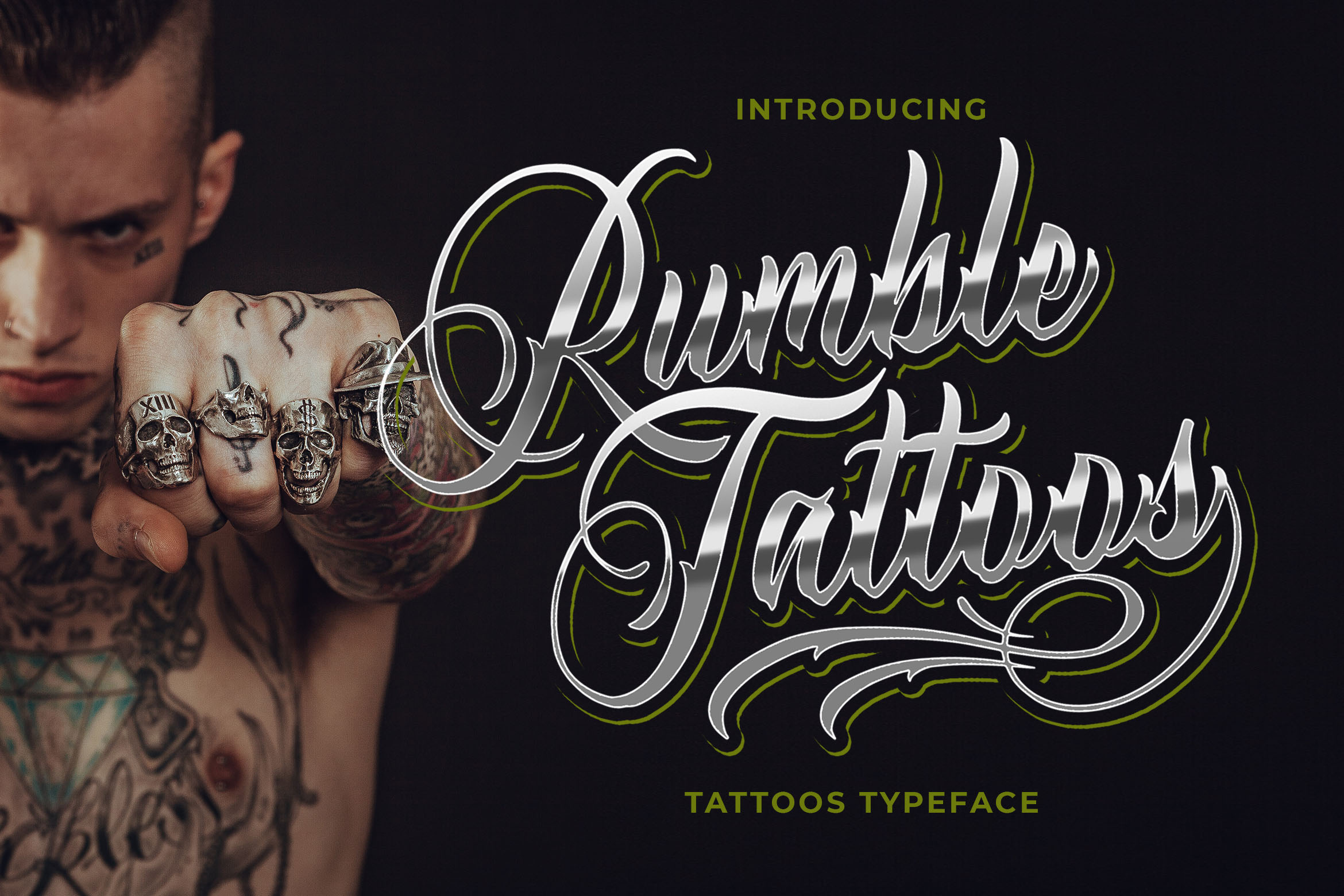
Rumble Tattoos Font
Rumble Tattoos Font is perfect for tattoo parlor branding, biker culture merchandise, rock band logos, motorcycle shop signage, rebellion-themed packaging, vintage americana designs, leather goods branding, and edgy advertising campaigns. This rebellious typeface works exceptionally well in both digital applications and print media where raw authenticity and outlaw spirit are essential design elements.
What makes Rumble Tattoos Font so exciting is its authentic capture of tattoo parlor culture and biker lifestyle through bold letterforms that seem inked with the rebellious spirit of American road culture and traditional tattoo artistry. The font features rugged characters with hand-drawn proportions, gritty textures, and outlaw details that evoke the authenticity of vintage tattoo flash sheets and motorcycle club patches. Its rebellious personality and subcultural heritage make it ideal for brands seeking to communicate genuine counter-culture values, artistic rebellion, and the brotherhood spirit of tattoo and biker communities while maintaining excellent readability.
The Rumble Tattoos Font family includes multiple stylistic variations with different distress levels, along with flash art alternates and tattoo-inspired ornamental elements. Each style maintains the typeface's rebellious character while offering comprehensive character sets including vintage numerals, outlaw-inspired punctuation marks, and special symbols designed to enhance subcultural communications and authentic branding efforts across various underground contexts.
This remarkable typeface represents the perfect marriage of tattoo artistry and contemporary typography for lifestyle and entertainment industries. Whether you're developing tattoo shop identities, creating biker event materials, or designing rock music promotions, Rumble Tattoos Font Free Download provides the authentic rebellion and versatility needed to connect with counter-culture audiences. The font's tattoo heritage makes it particularly effective for tattoo parlors, motorcycle dealerships, rock venues, and businesses celebrating the authentic spirit of American rebellion and artistic expression.
The carefully crafted hand-drawn details and optimized subcultural performance in Rumble Tattoos Font ensure both authentic grit and clear communication across all applications. Its rebellious presence makes it perfect for outlaw branding, counter-culture marketing materials, and subcultural communications where its full tattoo character can create powerful connections with audiences who live by their own rules and celebrate authentic artistic rebellion.